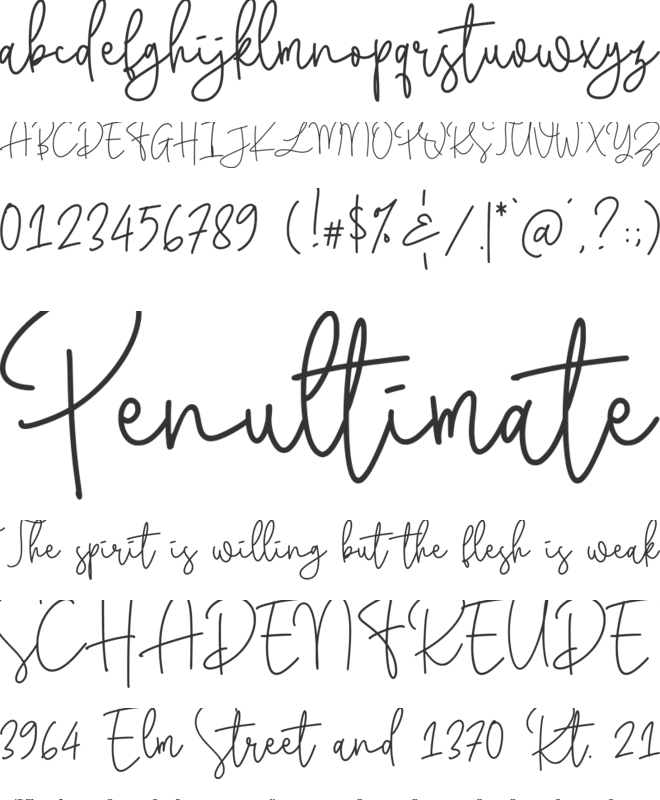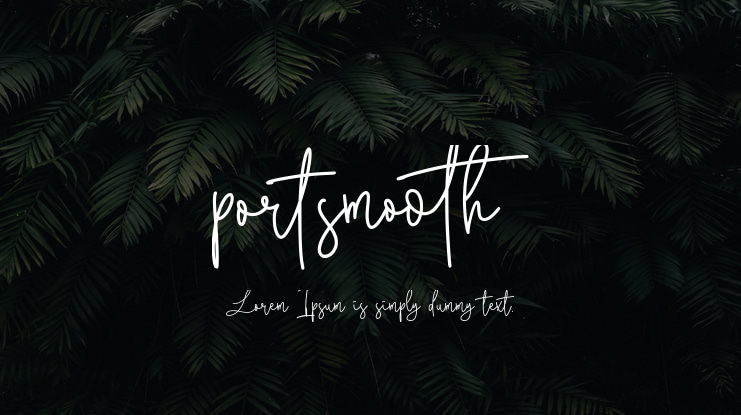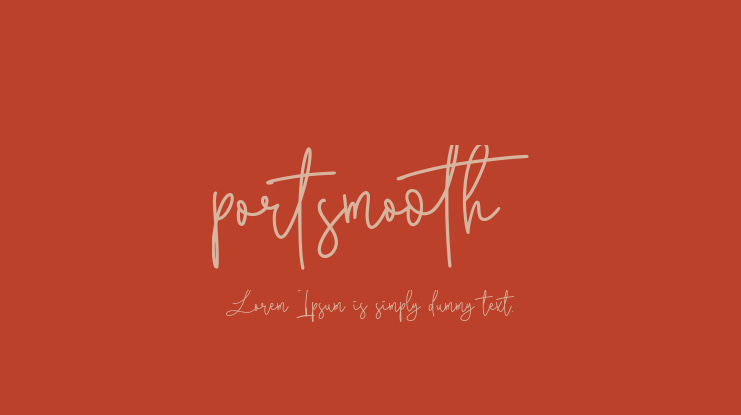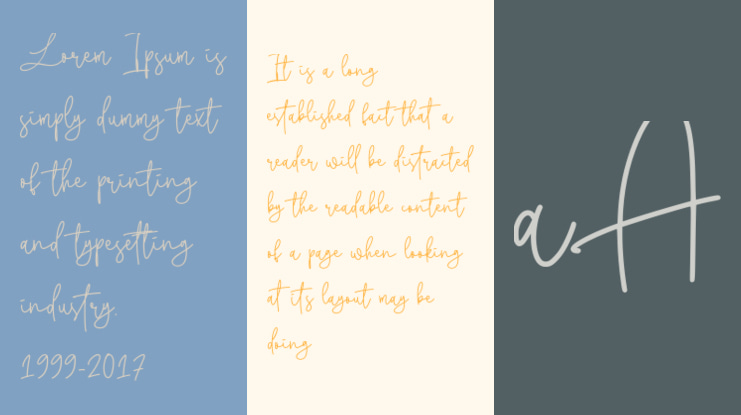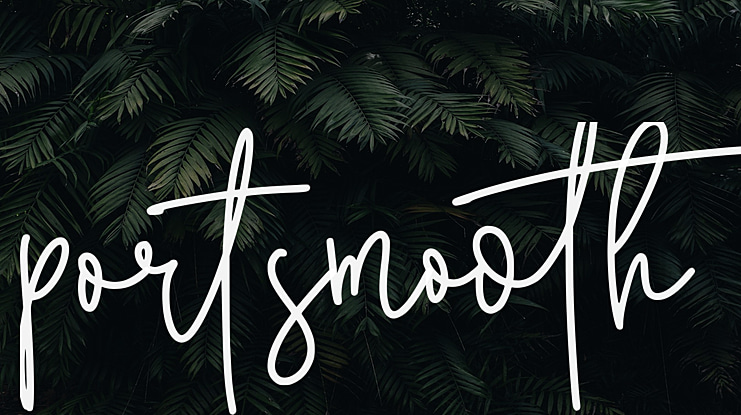
portsmooth Font
Abo Daniel 2020
PORTSMOOTH - monoline signature font -
it is great for branding, packaging, card, logo, tote bag design, cup drink design, banner, and anything project with elegance touch but still look crafty. I created 38 ligatures to make this font look so natural. This font is perfectly combined with swash